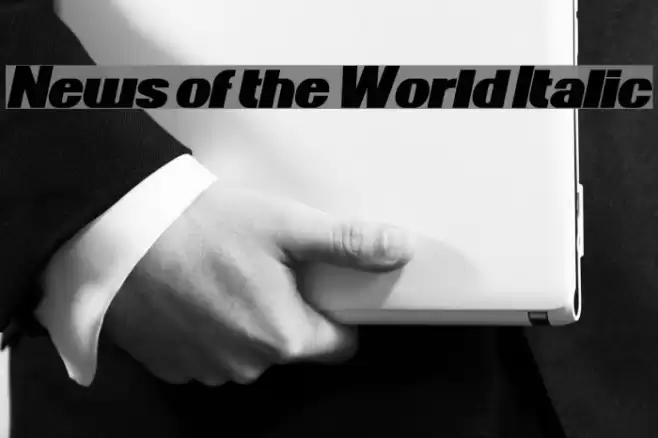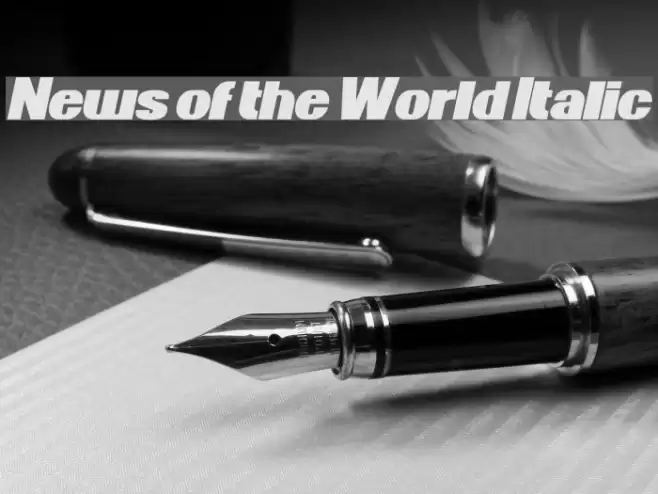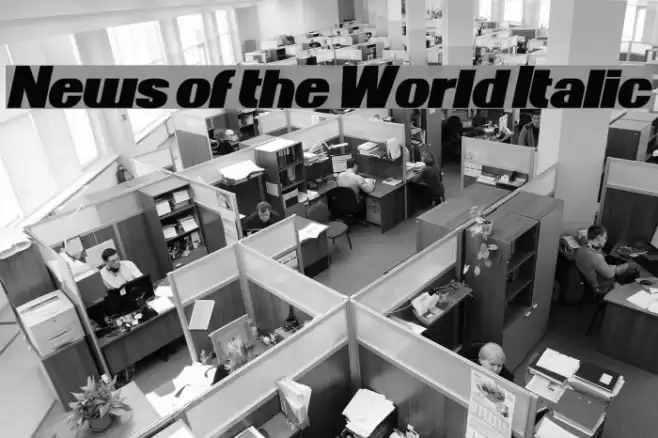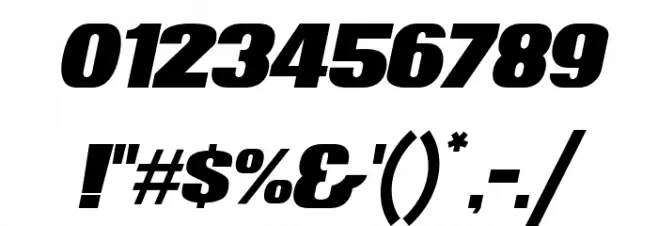
News of the World Italic Font
News of the World Italic Description
This font exhibits a bold and dynamic style with a strong italic slant, giving it a sense of motion and urgency. The characters are thick and robust, with a slightly condensed width that enhances its impactful appearance. The uppercase and lowercase letters maintain a consistent weight, providing a uniform look across the alphabet. Numbers and special characters follow the same bold and italicized design, ensuring coherence throughout. The font's high contrast in stroke thickness adds to its dramatic and eye-catching nature, making it suitable for attention-grabbing headlines or titles.
A bold, italicized font with high contrast and a dynamic, condensed style from Uncategorized fonts.
- Proposed Projects: Ideal for use in headlines, posters, advertisements, and any design requiring a bold statement.
- Width: Condensed
- Contrast: High